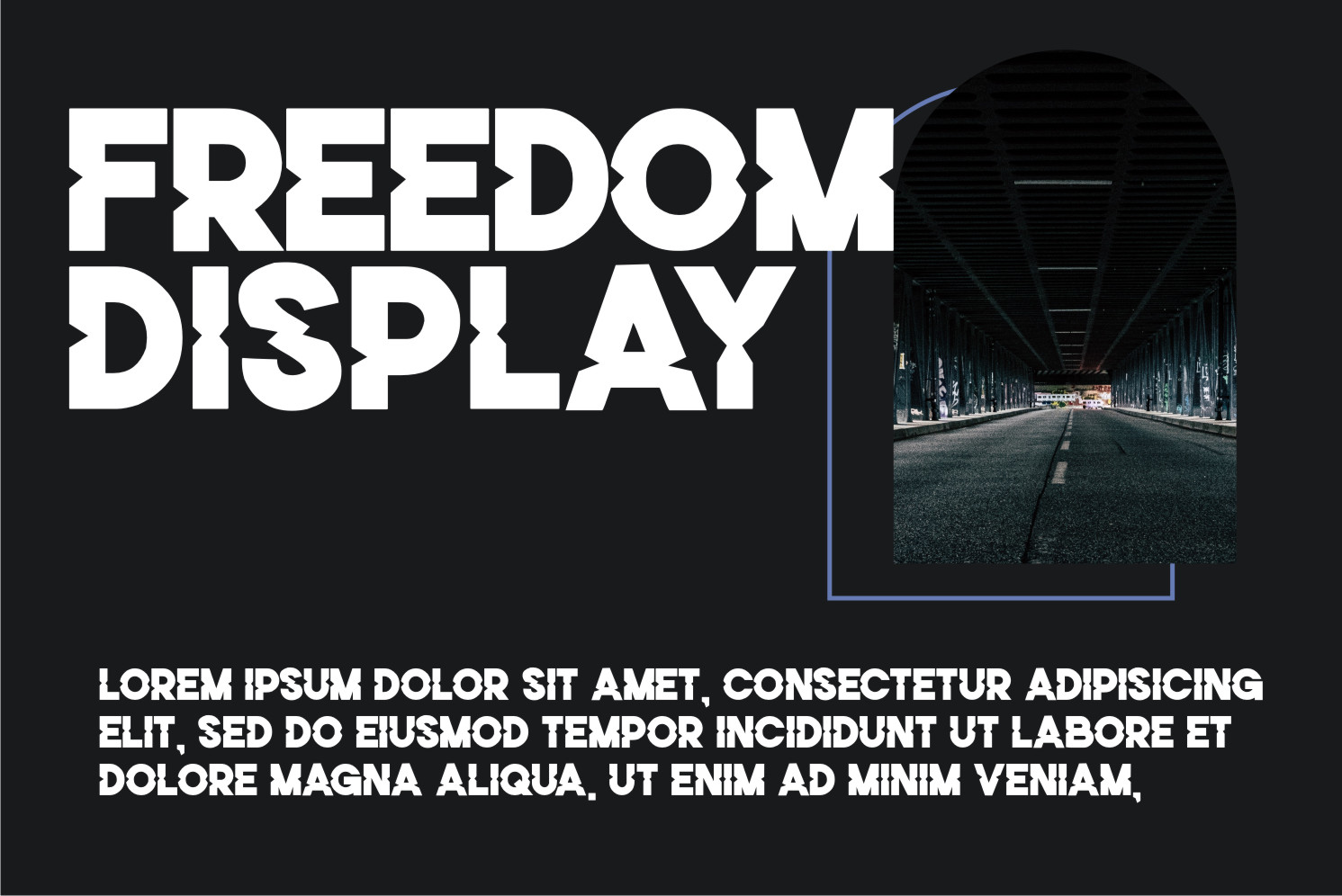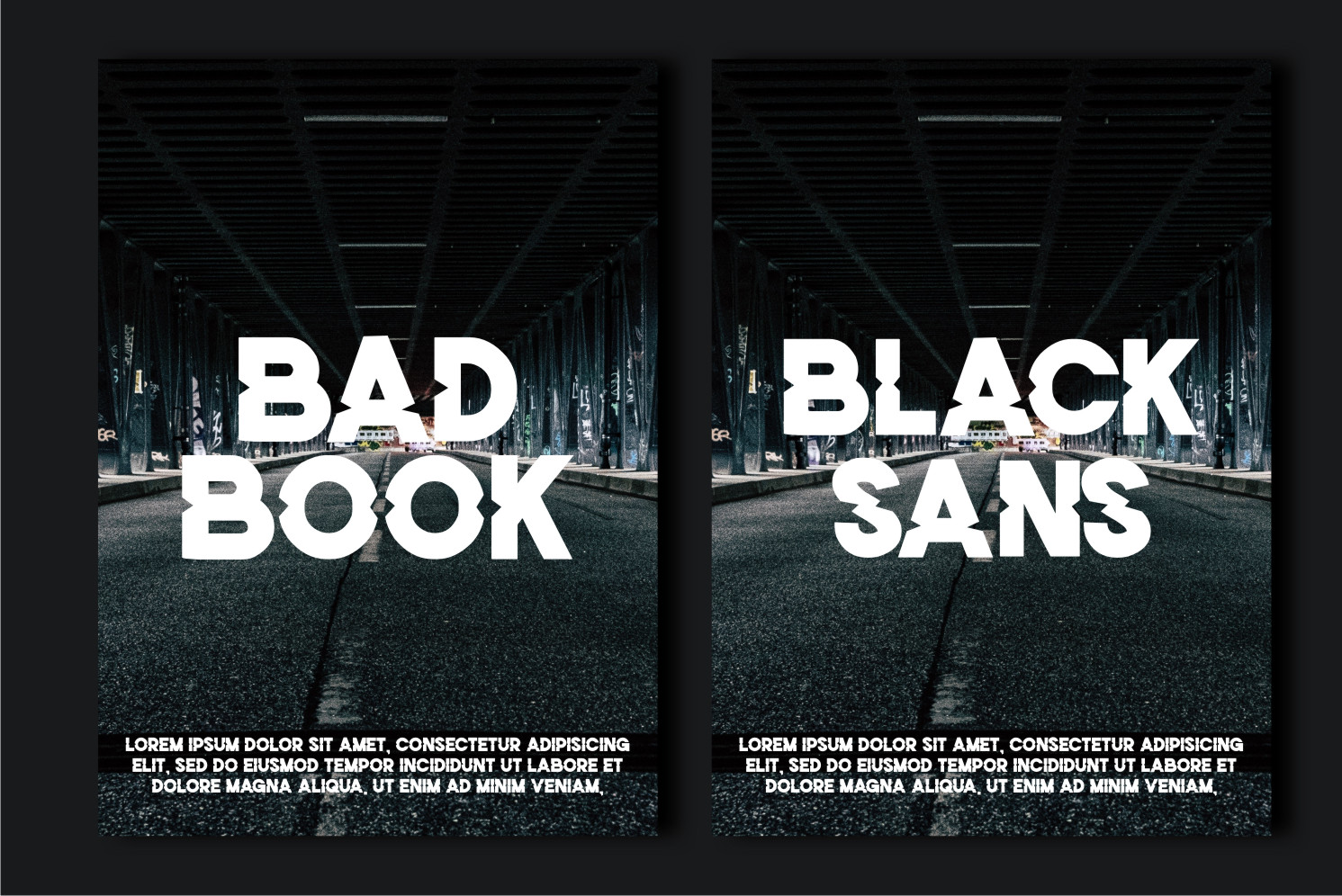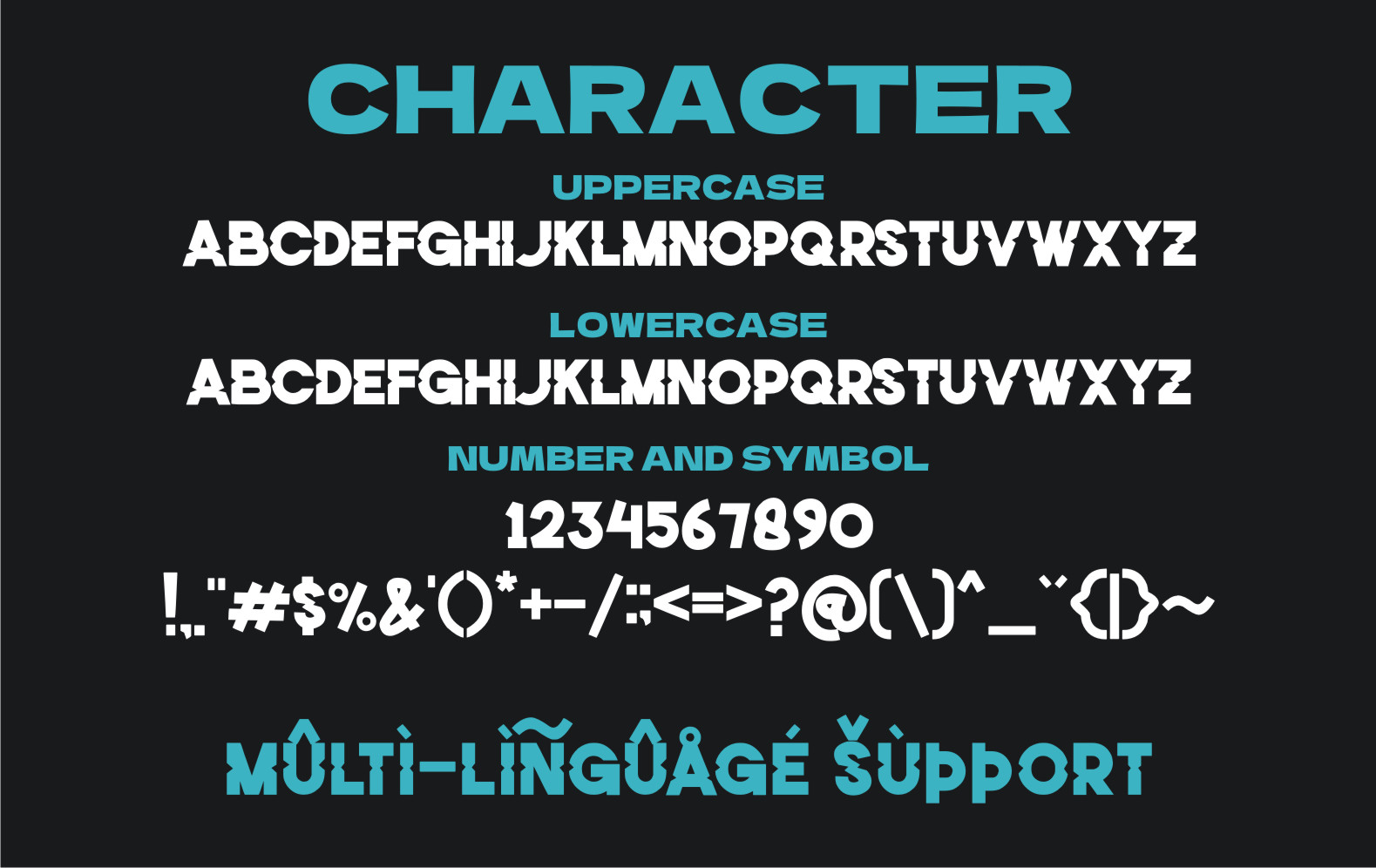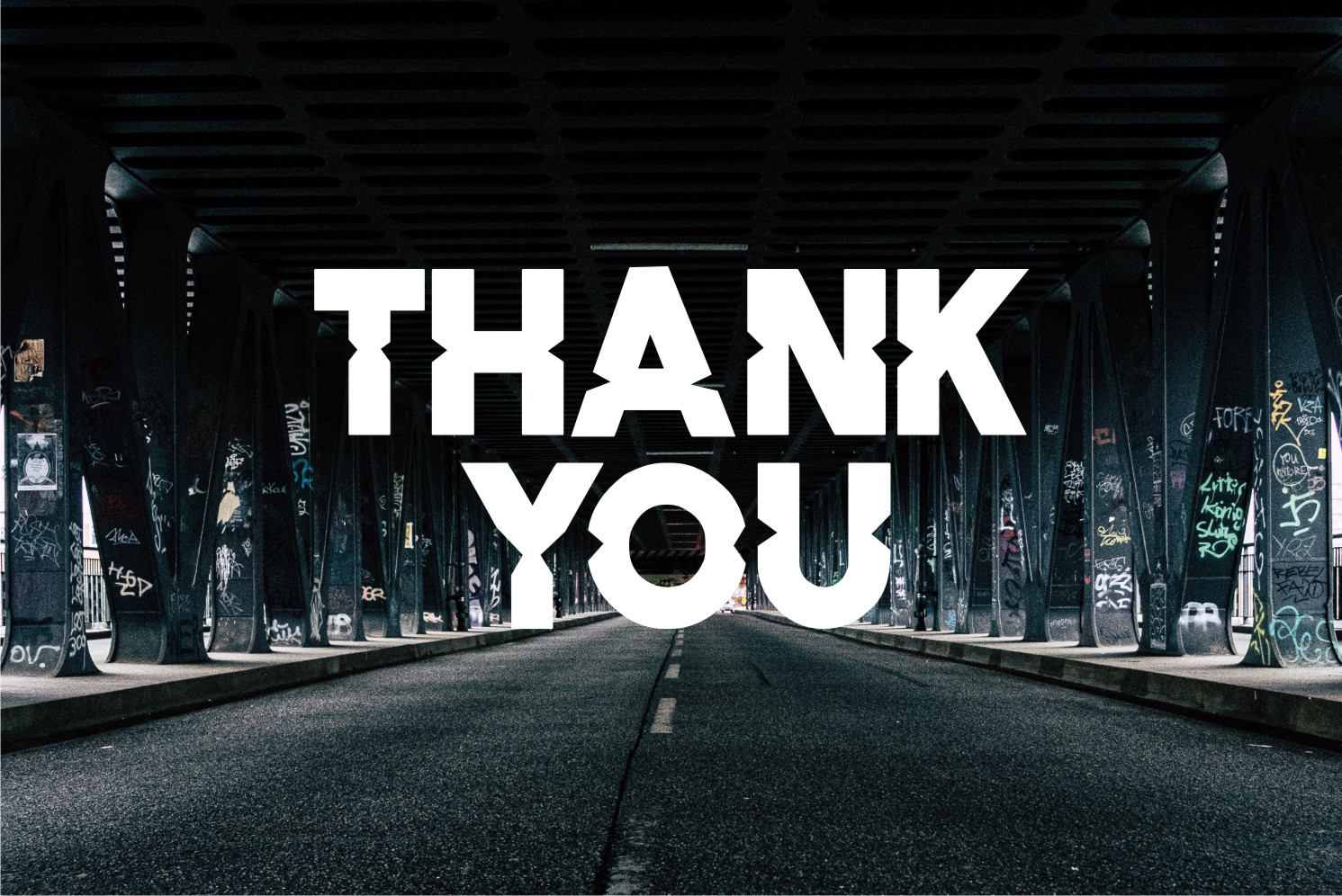
Hileaw Font
Hileaw Display Font
This is a cool, modern and thick lettered display font. This font is suitable for designs such as t-shirts, sportswear, logos, advertisements, clothing, and more.